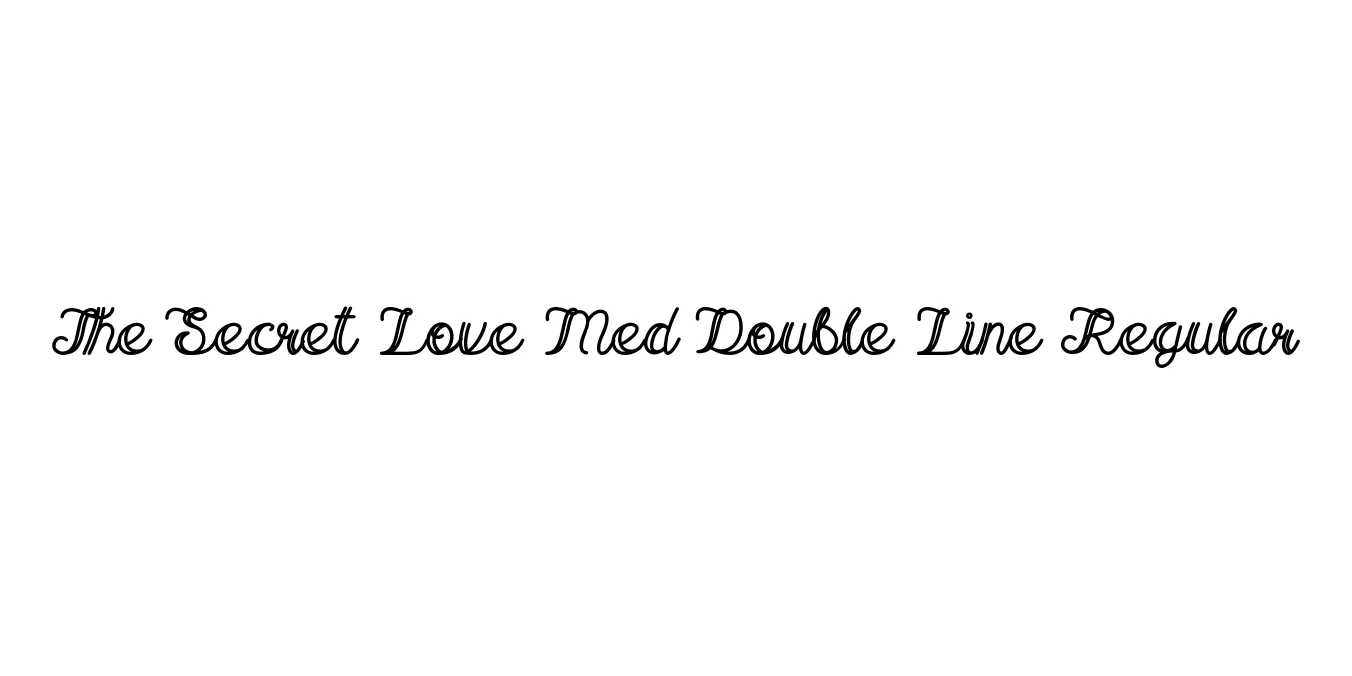
The Secret Love Med Double Line Regular
Designed by Sronstudio
The Secret Love Med Double Line Regular is an elegant and sophisticated script typeface that features a unique double-line aesthetic. This decorative font is designed to evoke a sense of romance and intimacy, making it a popular choice for high-end branding and wedding stationery. The delicate strokes and rhythmic flow of the characters provide a handcrafted feel that stands out in both digital and print media, offering a modern twist on traditional calligraphy.
This specific variant, the Med Double Line, offers a balanced weight that maintains legibility while adding a luxurious flair to any layout. Developed for creative versatility, it works beautifully for projects that require a touch of artistic expression. Whether used for stylized social media graphics, professional logo design, or personalized greeting cards, this font delivers a distinctive personality that captures attention and conveys heartfelt emotion through its intricate linework.
The Secret Love Med Double Line Regular Best Uses
Ideal for invitations, RSVP cards, and envelopes due to its romantic double-line style.
Perfect for luxury brands and boutique logos that require a unique, handcrafted aesthetic.
Great for quotes, story highlights, and promotional graphics needing a stylish script.
Adds a personalized and sophisticated touch to birthday, anniversary, and holiday cards.